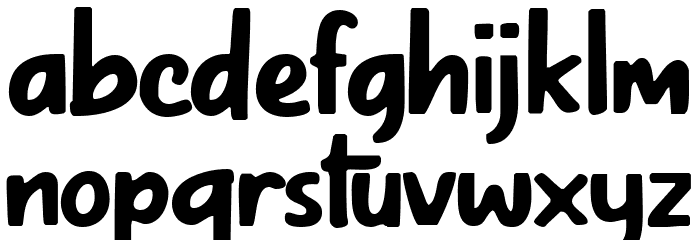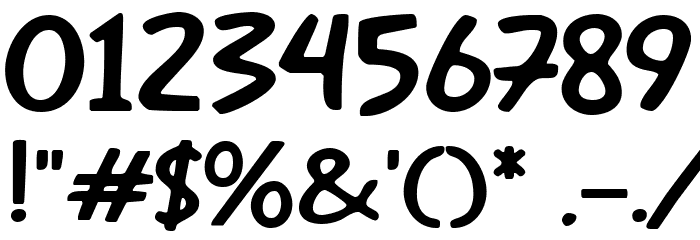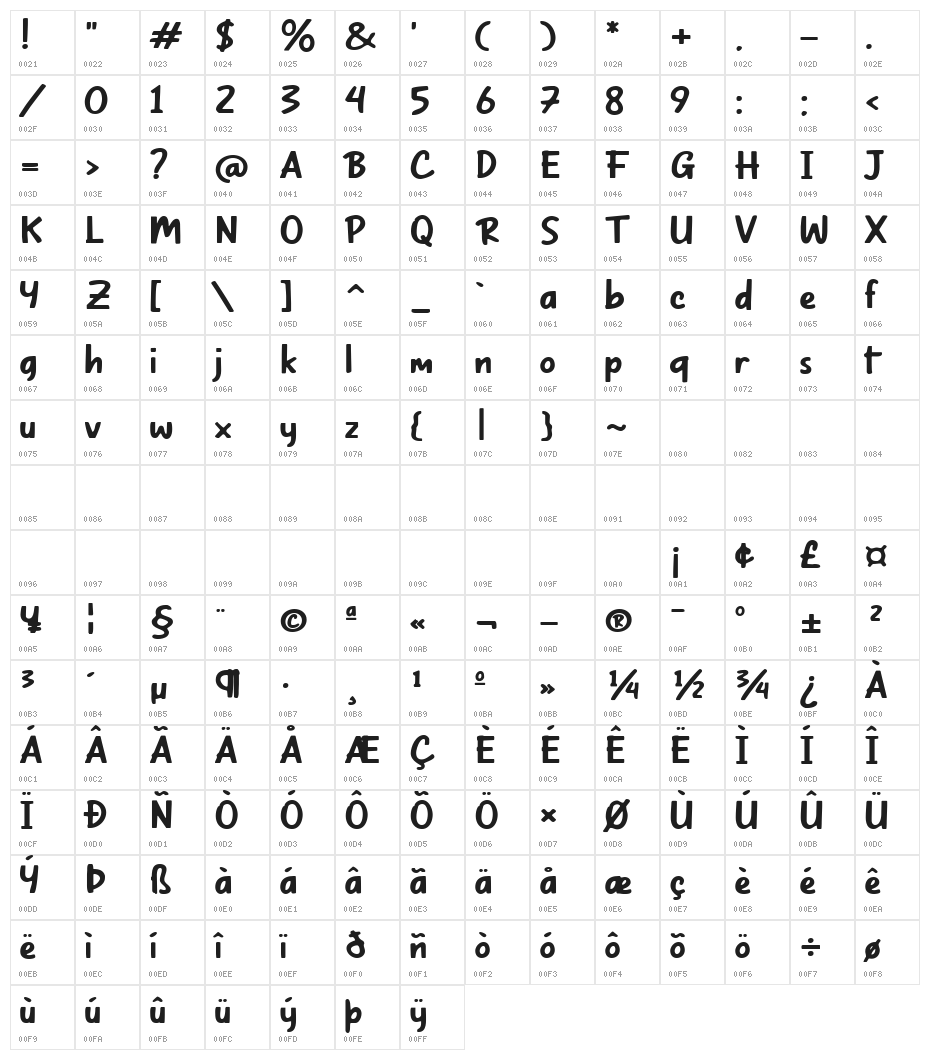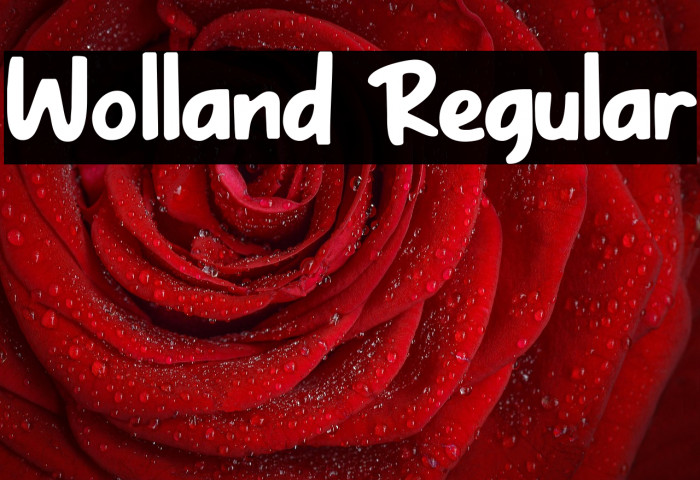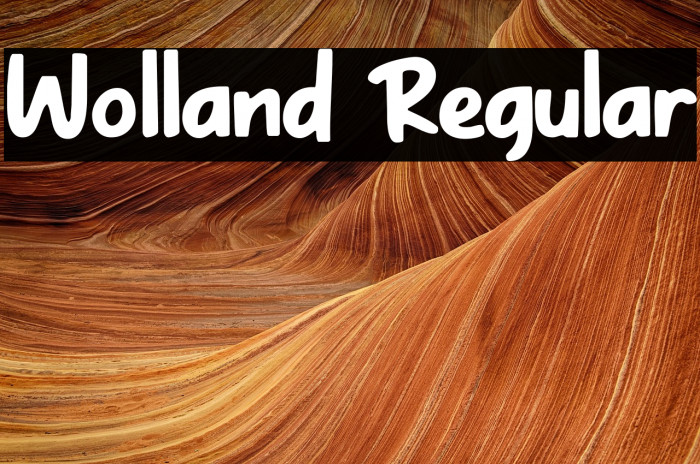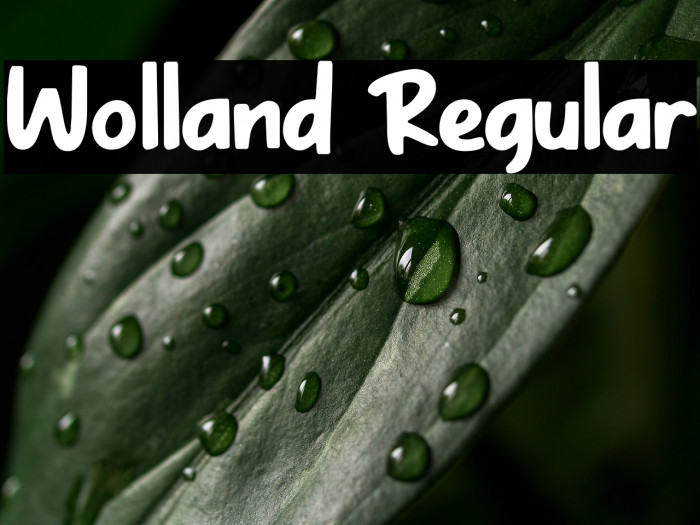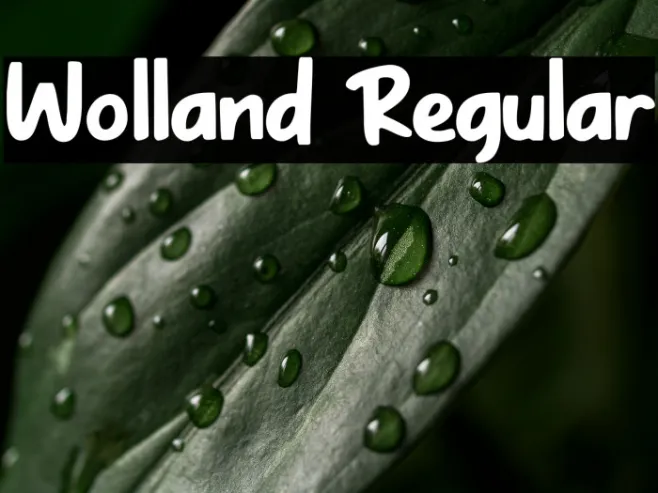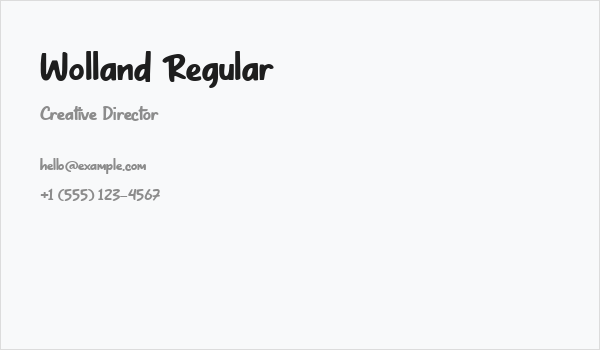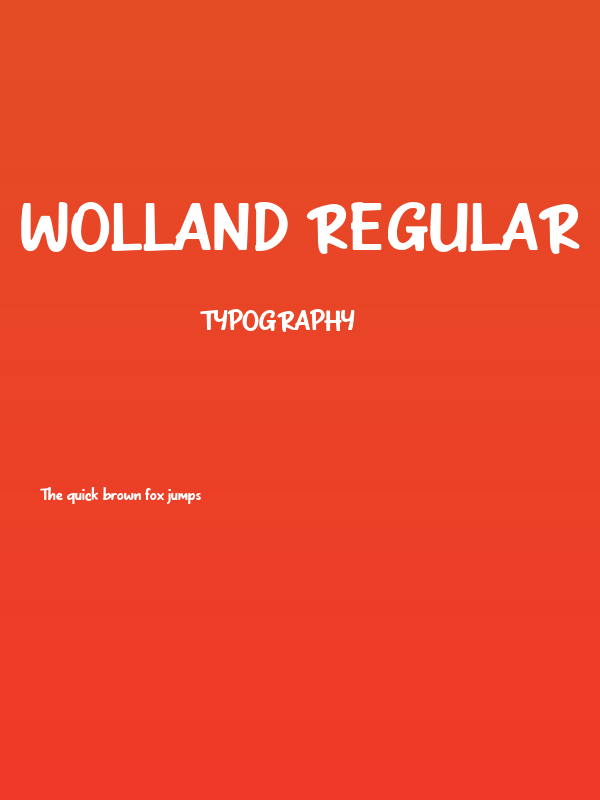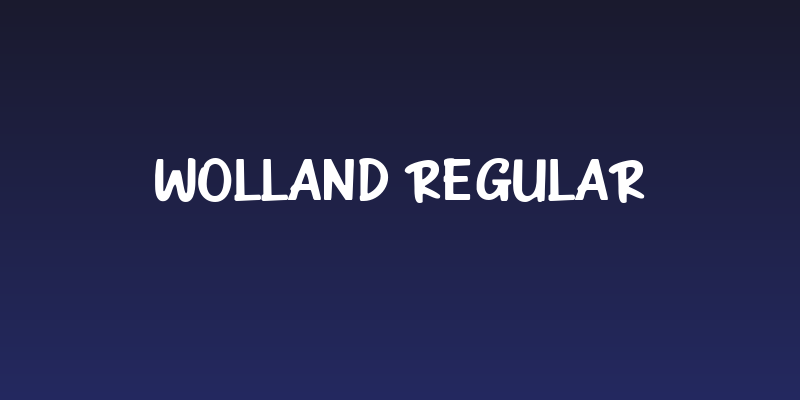
Wolland Regular Font
This font features a playful and bold handwritten style, characterized by its thick, rounded strokes and slightly irregular shapes that give it a casual and friendly appearance. The letters are well-spaced, ensuring readability while maintaining a lively and energetic feel. The uppercase and lowercase letters are distinct, with a consistent stroke weight that adds to its cohesive look. Numbers and special characters are designed to match the overall style, making it versatile for various uses. Its unique charm makes it suitable for projects that require a personal touch or a fun, informal vibe.
A bold, playful handwritten font with rounded strokes and a casual style.
- Proposed Projects: Ideal for children's books, greeting cards, posters, and branding that requires a friendly and approachable look.
- Category: Handwritten
- Overall Style: Playful, Casual